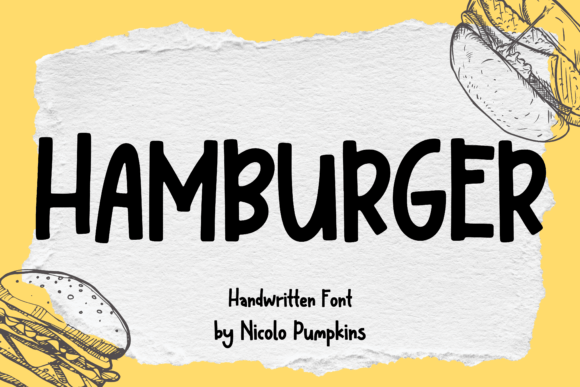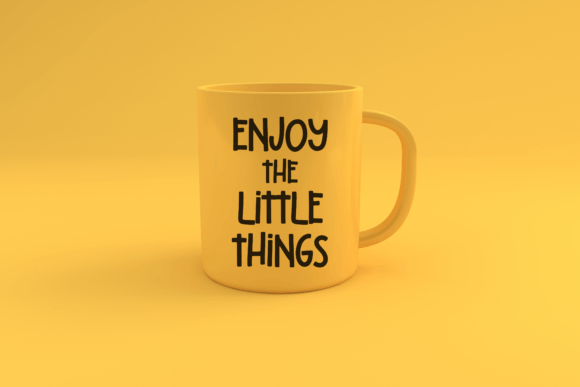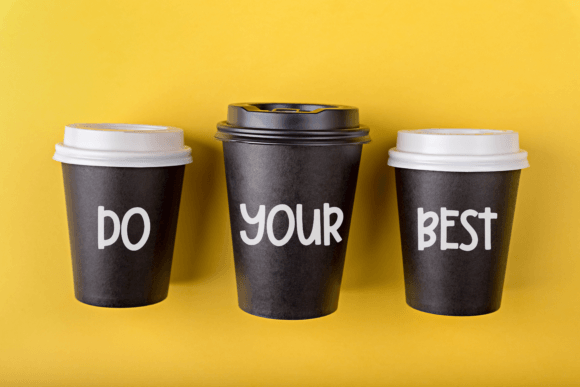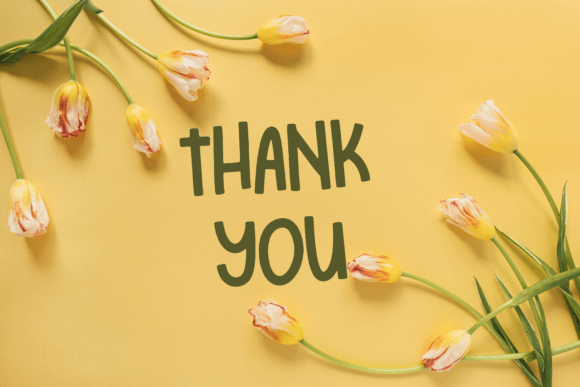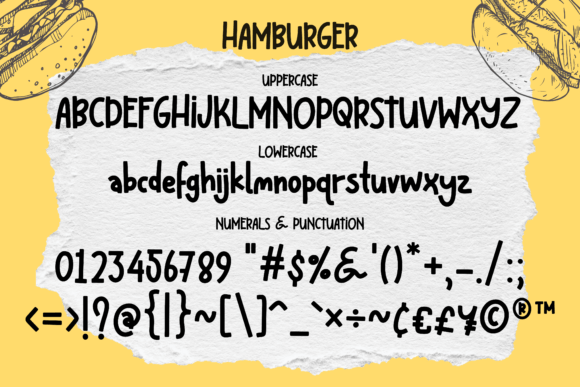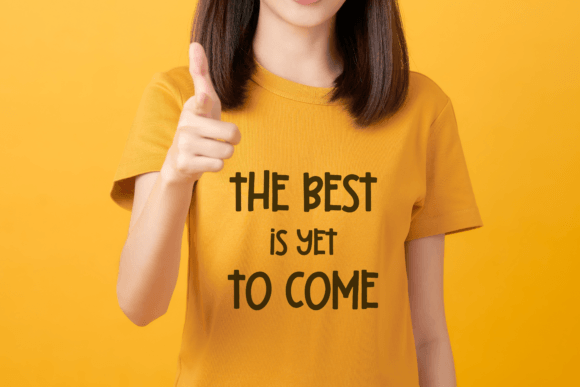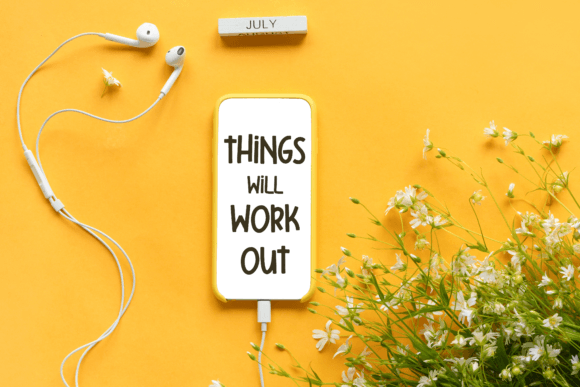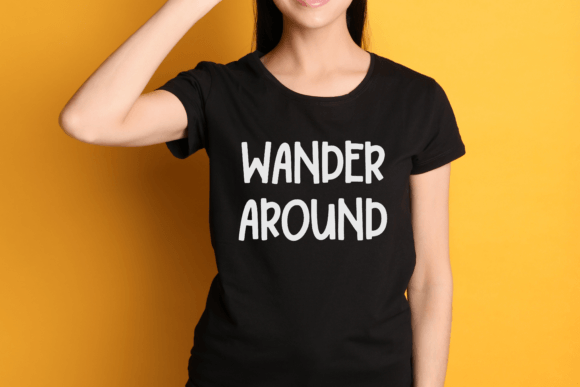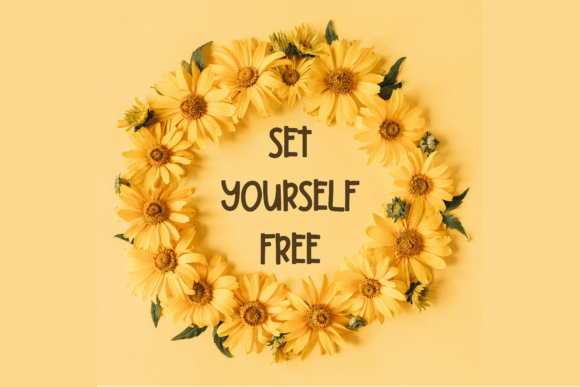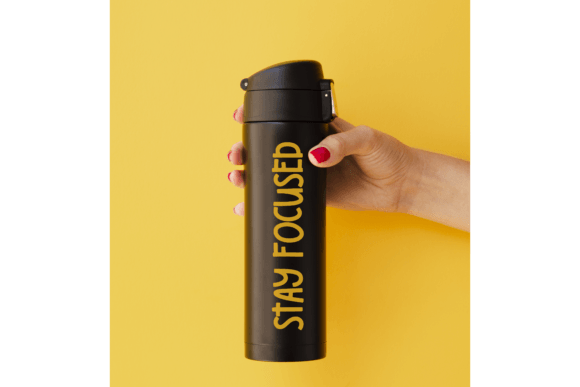
Hamburger Font
About Hamburger Font
Hamburger is not just a font; it’s a cute and friendly handwritten typeface that is perfect for bringing a playful touch to your creative projects. Whether you’re creating quotes, logos, or various lettering products such as t-shirts, cards, tote bags, mugs, and pillowcases, Hamburger is designed to make any creative idea stand out. With its PUA encoding, accessing all the delightful glyphs and swashes is easy, offering you the flexibility to customize and enhance your designs.
The cuteness and friendliness of Hamburger are evident in its handwritten style. The font adds a playful and approachable quality to the text, making it a suitable choice for projects that aim to convey a sense of warmth and friendliness. Hamburger becomes more than just letters; it becomes a visual representation of creativity and fun.
The versatility of Hamburger shines through in its suitability for various lettering products. Whether you’re designing a catchy quote for a t-shirt, a charming logo, or creating personalized items like cards and mugs, Hamburger adapts effortlessly to different contexts. It ensures that your designs exude a lighthearted and friendly vibe.
Hamburger’s PUA encoding is a valuable feature that enhances its accessibility. This means you can easily access all glyphs and swashes, providing you with the freedom to customize and embellish your designs. It empowers you to add extra flair and creativity to your projects, making them even more eye-catching.
In summary, Hamburger is more than just a font; it’s a design tool that adds a cute and friendly handwritten touch to your creative projects. Its playful style, combined with PUA encoding, ensures that it complements a wide range of designs, allowing you to create projects that are not only visually appealing but also filled with character and charm.